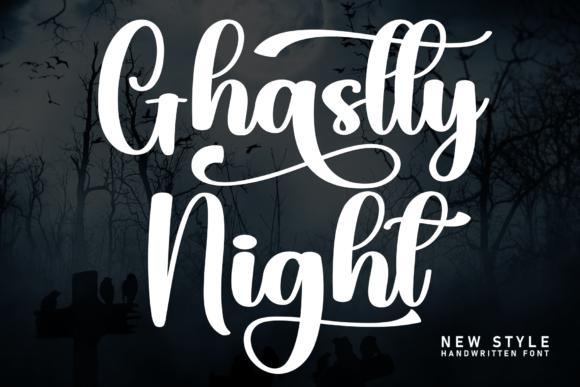
Journey into the realm of captivating typography with Ghastly Night Font, a mesmerizing creation by andikastudio that breathes life into your designs. This extraordinary script font family, meticulously crafted to perfection, stands as a testament to the power of visual storytelling.
Ghastly Night Font is not just a collection of glyphs; it's an artistic expression that speaks to your soul. Each letter, meticulously designed with a unique and beautiful touch, dances across the digital canvas, inviting you to explore new realms of creativity. With its elegant curves and enchanting swashes, Ghastly Night Font transforms ordinary words into captivating narratives that captivate your audience.
Immerse yourself in the boundless possibilities that await you with Ghastly Night Font. Whether you seek to create eye-catching logos that leave a lasting impression, elevate your branding to new heights, or add a touch of magic to your quotes, Ghastly Night Font is your steadfast companion. Its timeless charm and versatility make it the perfect choice for a wide array of projects, from personal expressions to professional endeavors.
Unleash your imagination and let Ghastly Night Font guide you on a journey of self-expression. Its intuitive design and user-friendliness make it accessible to designers of all skill levels, empowering you to effortlessly create stunning designs that resonate with your audience.
Ghastly Night Font is more than just a font; it's an experience. It's an invitation to break free from the mundane and embrace the extraordinary, to let your creativity soar and leave a trail of visual magic in its wake. Embrace the allure of Ghastly Night Font and embark on a journey of design excellence today.